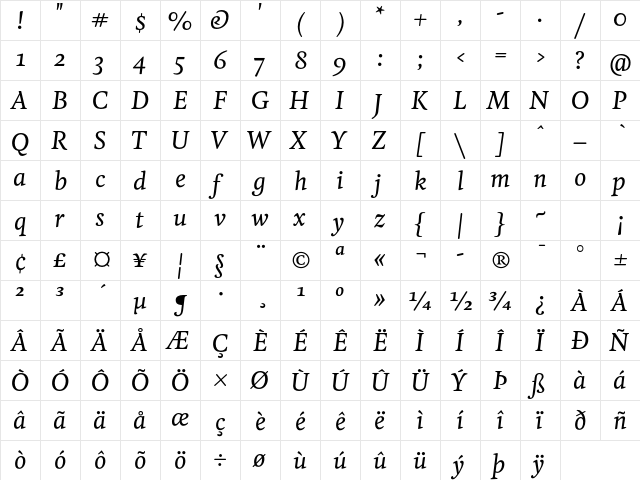
Feijoa Medium Italic
| Foundry | Kris Sowersby |
| Designer | Kris Sowersby |
Design Context for Feijoa Typeface
Feijoa offers clean, dependable letterforms without strong stylistic allegiance, making it a practical choice for designers who need flexibility. The slanted form adds forward momentum and visual energy.
Pro Tip: Use Feijoa for emphasis, pull quotes, and subheadings where its slanted energy can add rhythm to the layout.